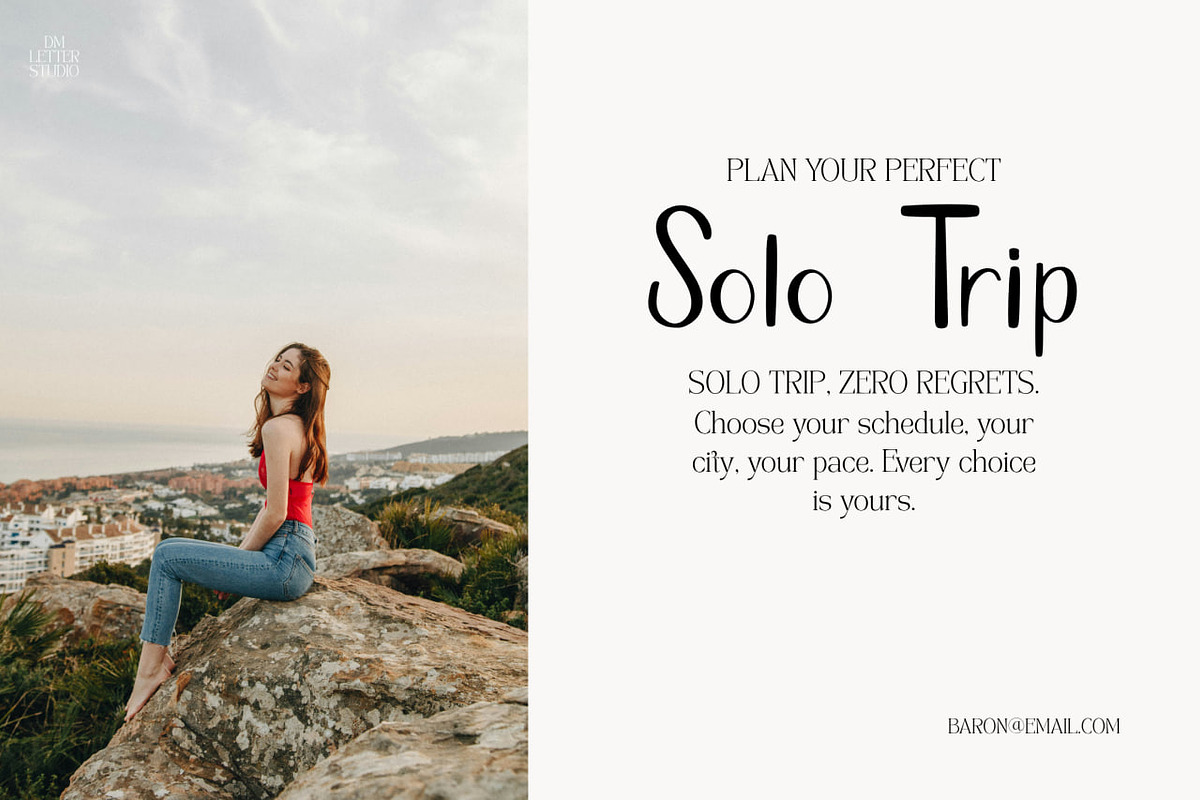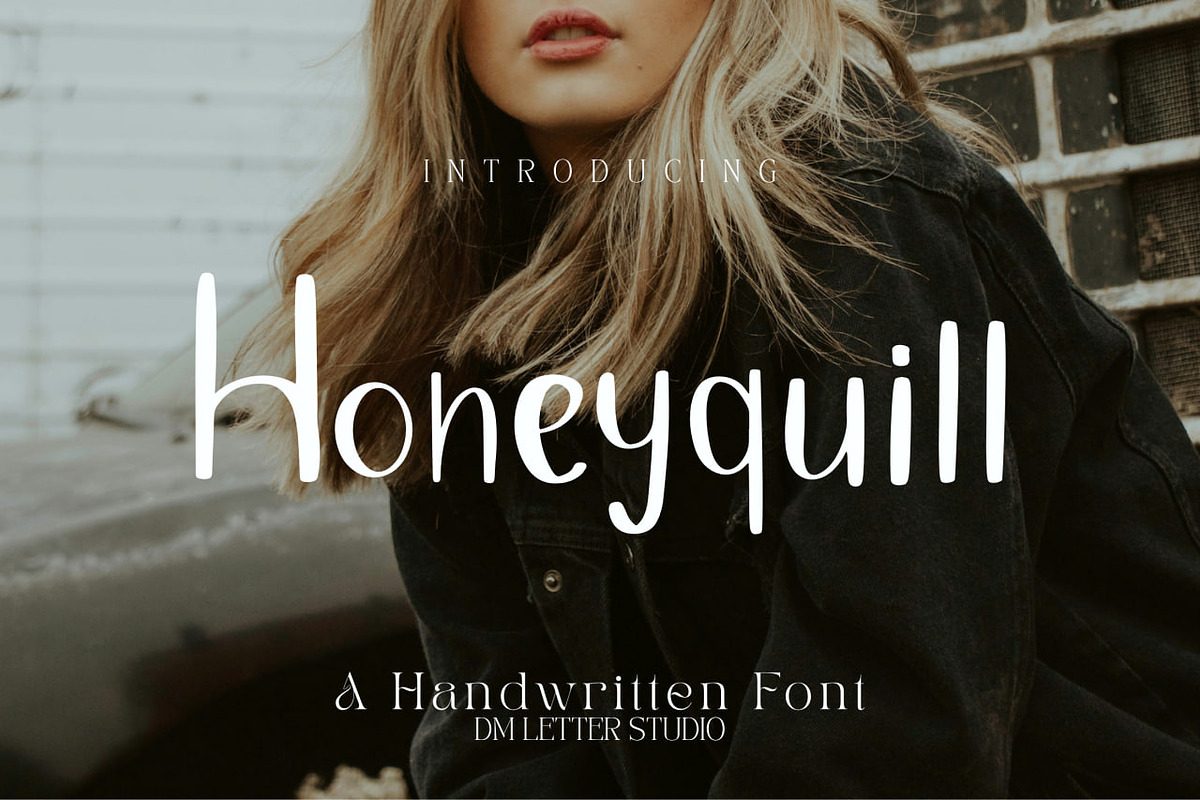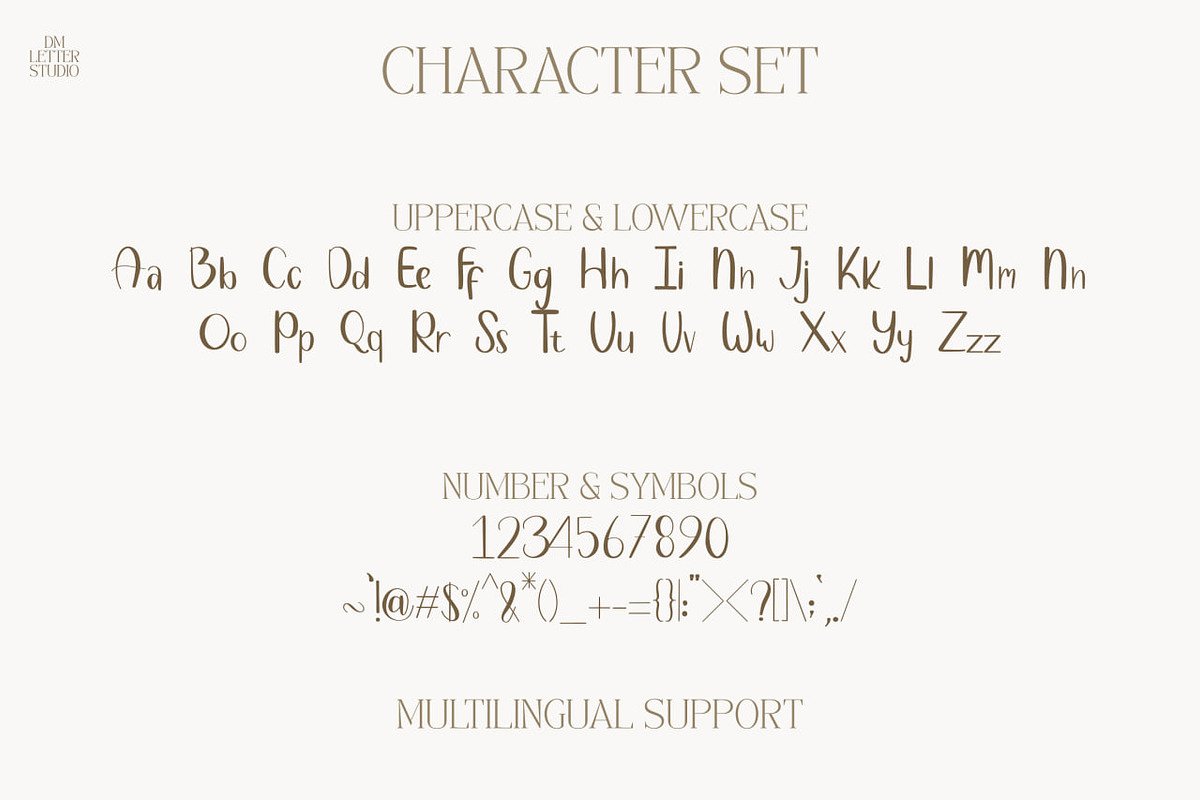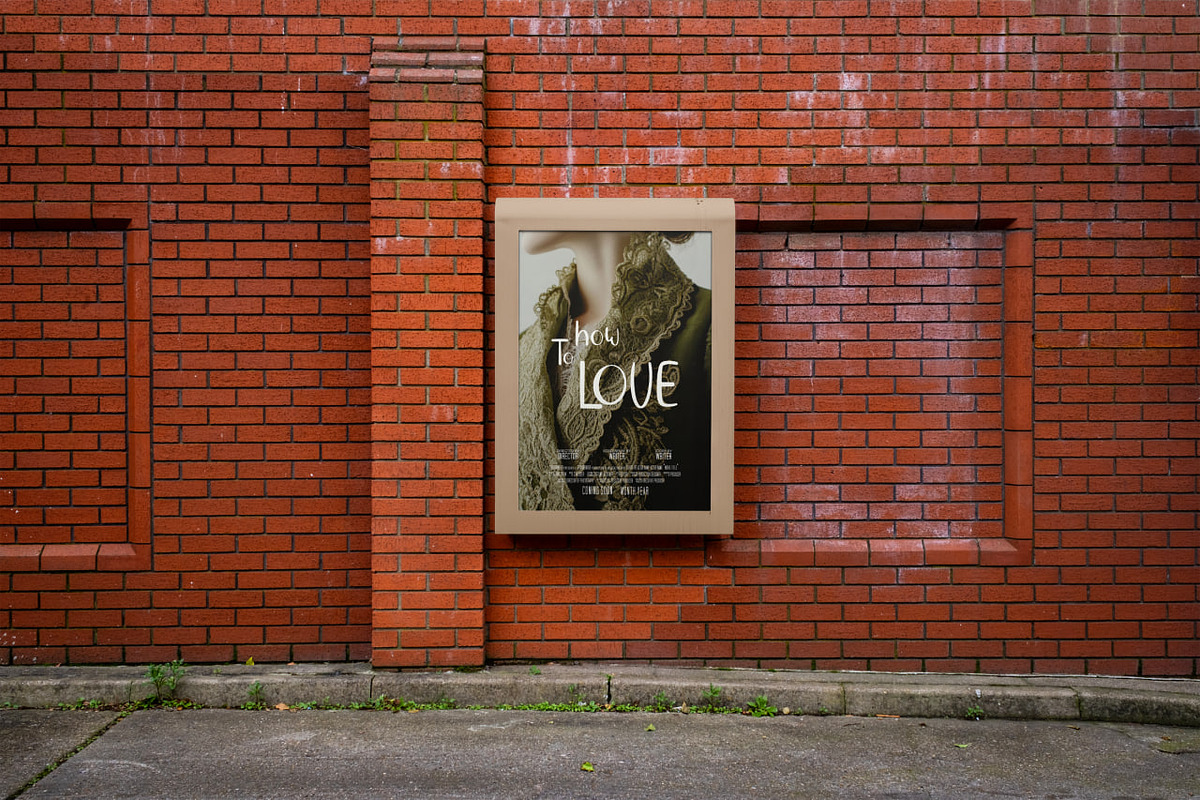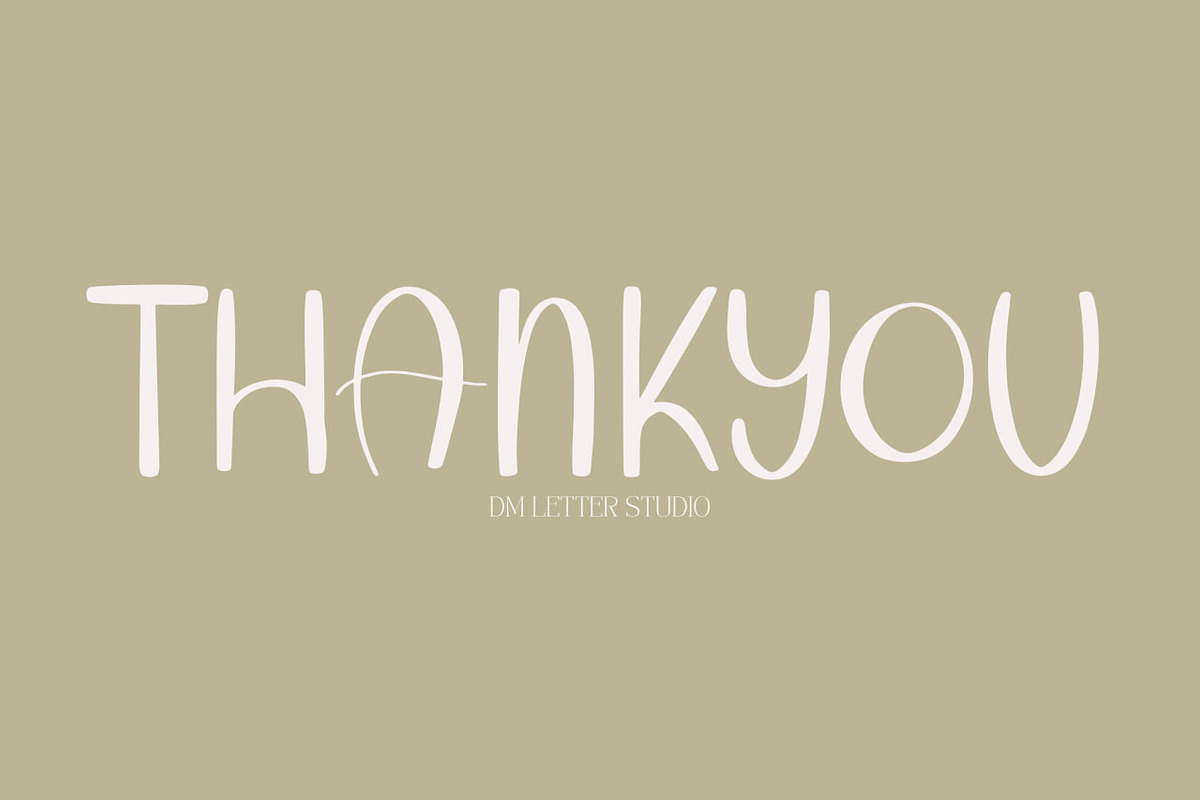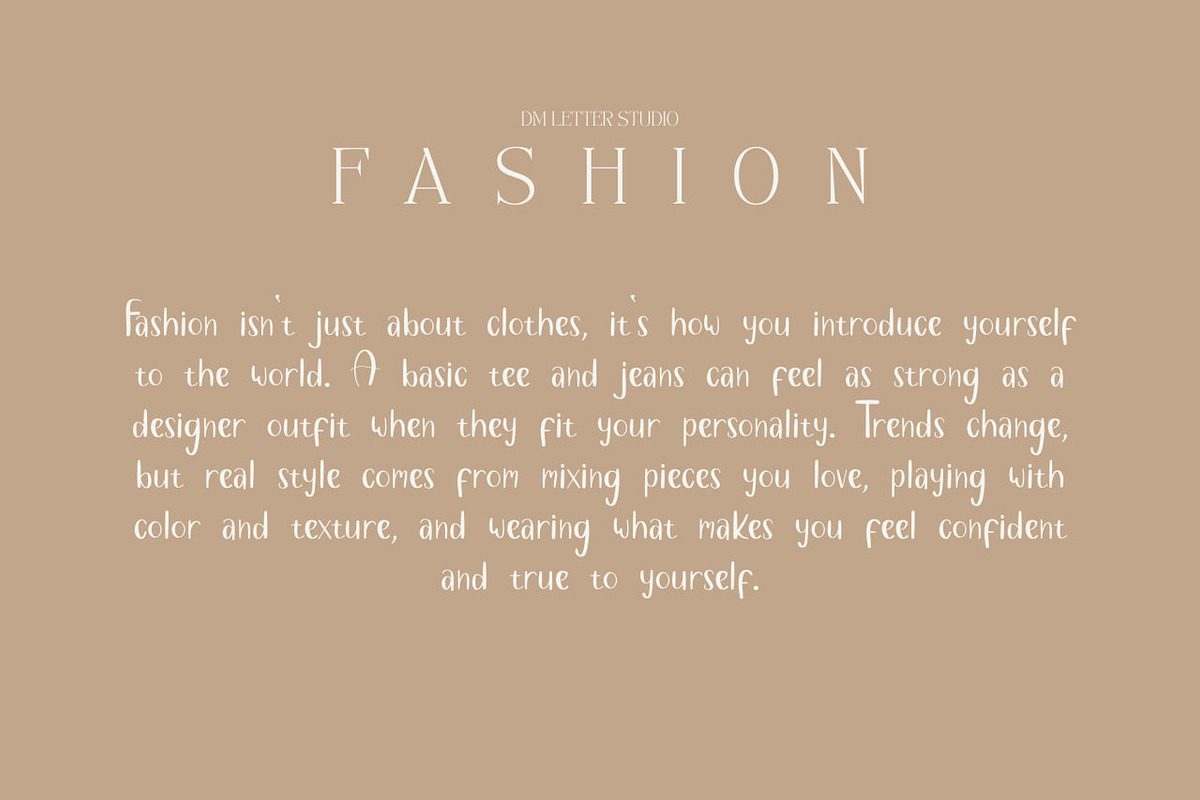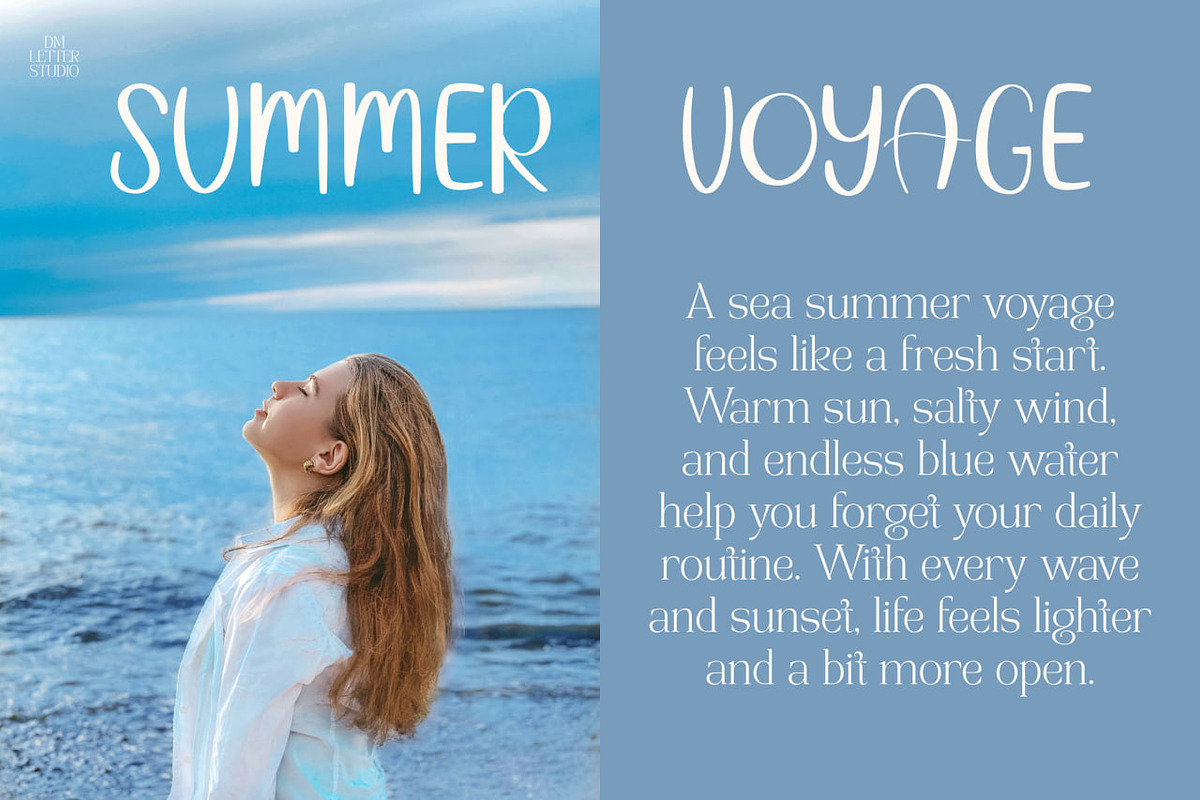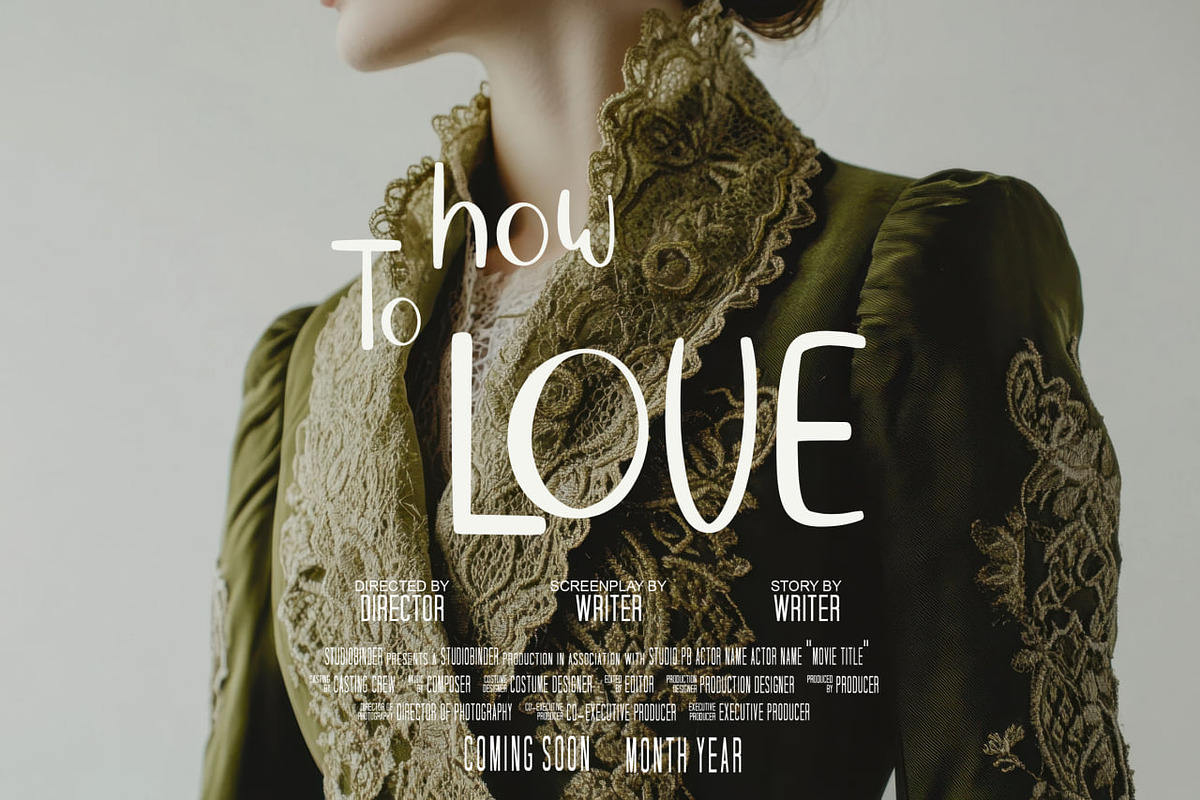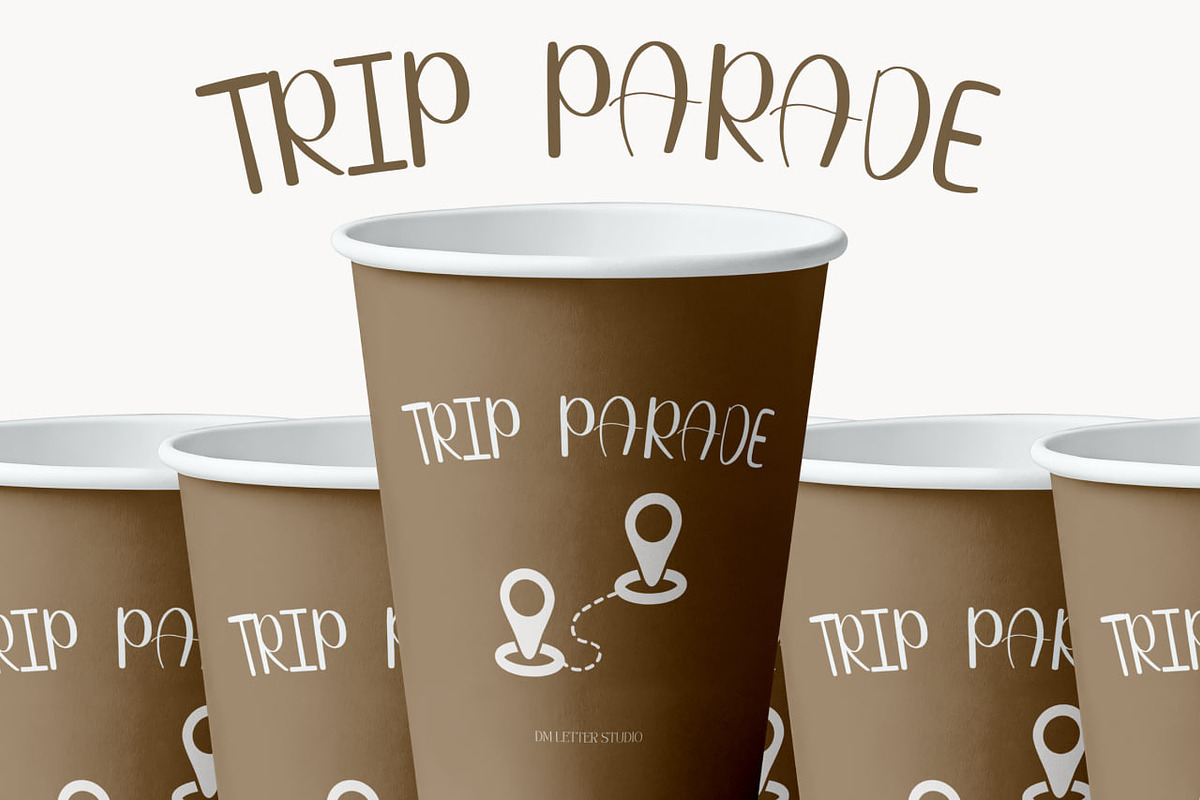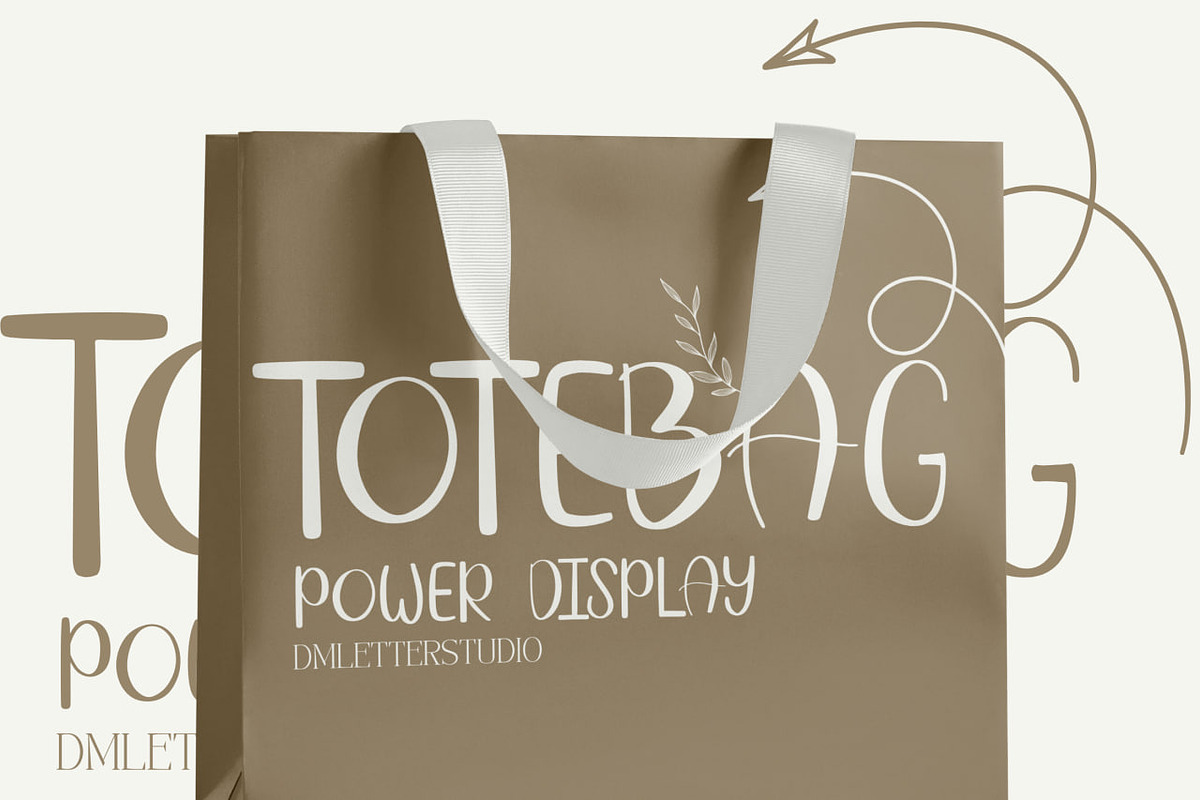
Honeyquill
Meet Honeyquill, the Sweet Handwriting Font
Honeyquill is a warm, flowing handwriting font with a soft, friendly personality. It feels natural and charming, like a handwritten note dipped in honey. The strokes are smooth and slightly playful, giving your text a cozy, personal touch without losing readability. Because the letterforms stay balanced and clear, Honeyquill works beautifully at small sizes and shines in larger quotes. Use it for branding, quotes, packaging, social media, planners, stationery, and heartfelt designs. As a result, your work feels inviting, genuine, and easy to love.
Why Honeyquill Font sells
Fast layouts with the Honeyquill Font
Start with short phrases, names, or quotes and let the strokes flow naturally. After that, add supporting text in a neutral font to keep everything readable. Because Honeyquill has a gentle rhythm, it works especially well in minimalist layouts, soft grids, and quote cards. In addition, it looks great on labels, stickers, and thank-you notes. Finally, try color pairs like honey & cream, blush & taupe, sage & linen, or charcoal & vanilla to enhance the cozy feel.
Creative uses and quick wins
Quotes, captions, and social media text
Branding accents and logo signatures
Packaging details, labels, and stickers
Planners, journals, and stationery designs
Uppercase and lowercase letters
Numbers and basic punctuation
Design tips for Honeyquill Handwriting Font
Keep text concise so the handwritten charm stays clear. Also, slightly increase letter spacing for small sizes to improve legibility. For print, use light or warm backgrounds to highlight the strokes. Finally, export at 300 DPI for print and at 2× size for web so everything stays crisp.